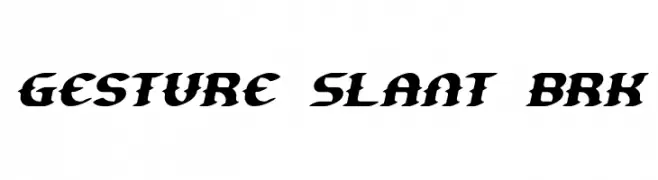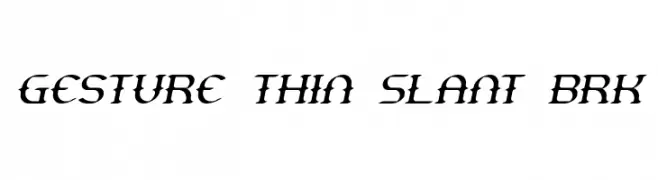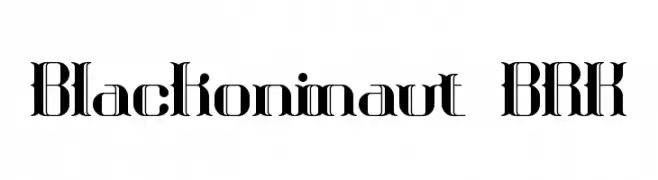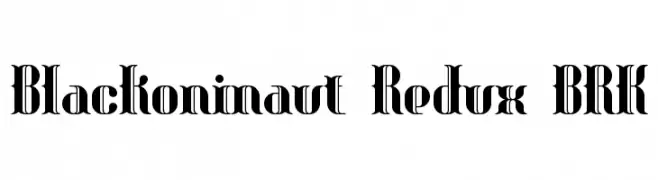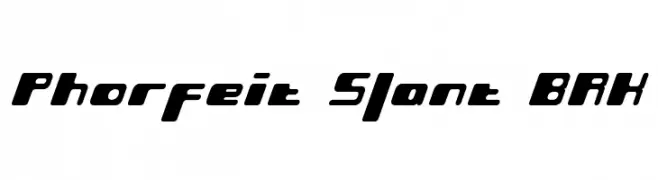
A bold, slanted font with sharp, angular edges and consistent thickness.
A thin, slanted font with a modern and dynamic style.
A modern-vintage font with thin strokes and decorative serifs.
Ornamental, symmetrical tile-patterned decorative font.
Intricate, abstract line designs with a vintage and modern aesthetic.
A bold, geometric font with sharp angles and a modern edge.
A bold, slanted font with a futuristic and dynamic design.